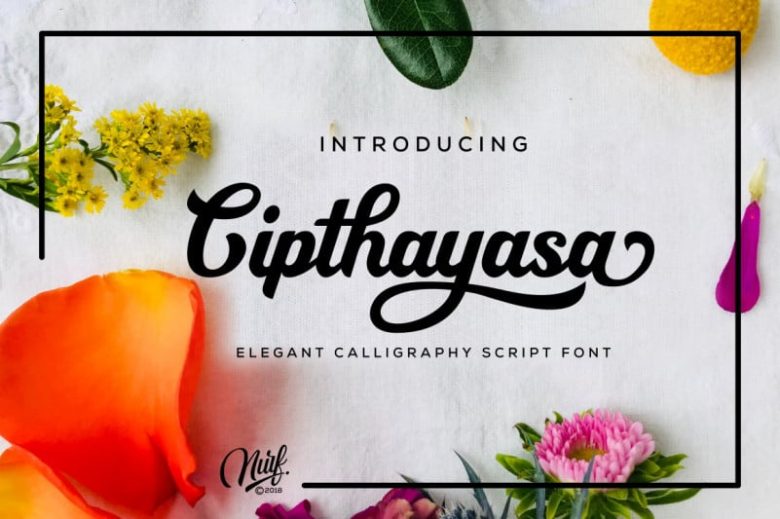
Cipthayasa Calligraphy Font
Cipthayasa Calligraphy Font is an elegant calligraphy script. It can be used for logos, headers, t-shirts, quotes, and every other design which needs a striking, yet friendly typeface.